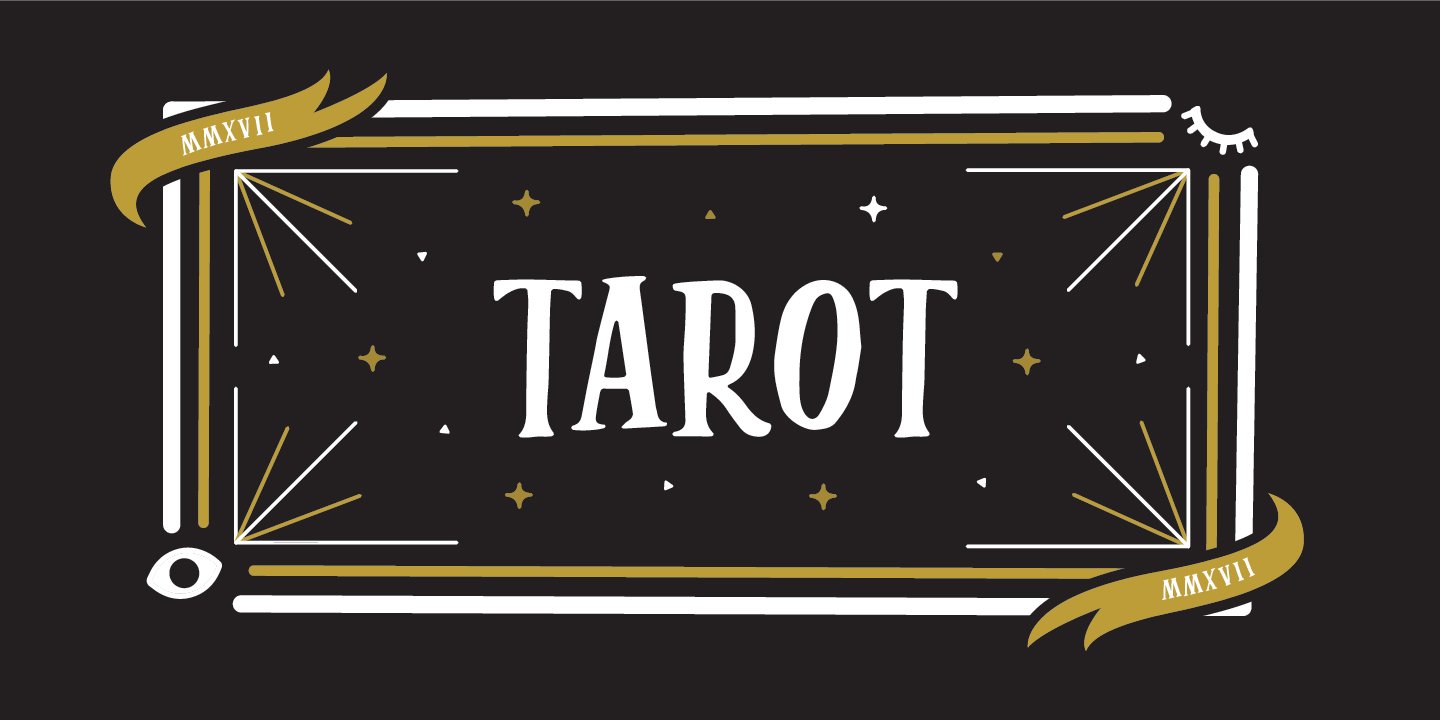
Tarot Font is ideal for mystical branding, spiritual websites, tarot card designs, occult publications, metaphysical books, esoteric magazines, gothic artwork, magical event posters, spiritual guidance materials, and mysterious advertising campaigns.
What makes Tarot Font exciting is its enchanting ability to channel ancient mysticism and spiritual energy through typography. This mesmerizing typeface captures the ethereal essence of divination and spiritual exploration, featuring intricate letterforms that evoke the mysterious world of tarot readings and occult wisdom. The font's supernatural character and otherworldly appeal instantly create an atmosphere of magic and intrigue, making it the perfect choice for brands and projects seeking to connect with spiritual and mystical audiences.
Tarot Font family includes mystical variations such as Regular, Bold, Light, Shadow, Ornate, Ancient, and Decorative styles, providing comprehensive options for creating immersive spiritual and occult-themed design experiences across various applications.
The Tarot Font Free Download offers designers an extraordinary gateway into the realm of mystical typography and spiritual visual communication. This captivating typeface draws inspiration from centuries-old occult traditions, featuring carefully crafted symbols and letterforms that resonate with ancient wisdom and supernatural energy. Professional designers consistently select this font for projects requiring authentic mystical atmosphere that speaks to seekers of spiritual knowledge and esoteric understanding.
Whether you're creating websites for tarot readers, designing packaging for spiritual products, developing branding for metaphysical shops, or crafting marketing materials for mystical services, Tarot Font delivers unparalleled supernatural ambiance. The font's versatility excels in both dramatic display applications and atmospheric text settings, maintaining its magical presence while ensuring excellent readability for spiritual content.
The mystical design characteristics of Tarot Font include ornate flourishes, ancient-inspired serifs, and symbolic elements that reference traditional occult typography while remaining accessible to modern audiences. These features make it perfect for spiritual blogs, tarot deck packaging, astrology websites, meditation centers, crystal shops, new age publications, and holistic wellness brands seeking authentic mystical identity.
Spiritual entrepreneurs and creative professionals value how Tarot Font immediately establishes credibility within mystical communities while attracting curious seekers exploring spiritual practices. Its authentic esoteric appearance helps build trust with audiences interested in divination, astrology, and metaphysical studies.
The font's exceptional ability to convey mystery and wisdom makes it particularly valuable for educational spiritual content and professional mystical services. From tarot reading advertisements and spiritual coaching materials to occult book covers and mystical event promotions, Tarot Font maintains its supernatural allure while ensuring clear communication.
For designers and spiritual entrepreneurs committed to creating authentic mystical experiences that honor ancient traditions while appealing to contemporary seekers, this font provides the perfect foundation for meaningful spiritual branding that resonates with souls seeking divine guidance and mystical wisdom.